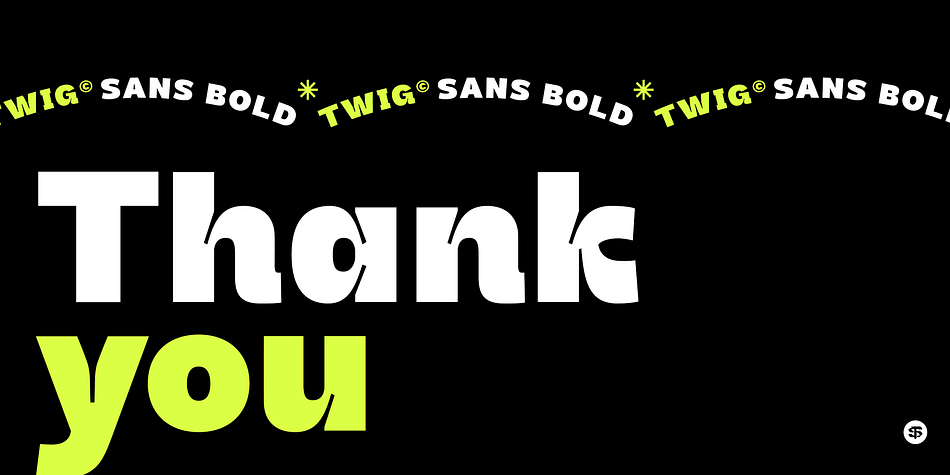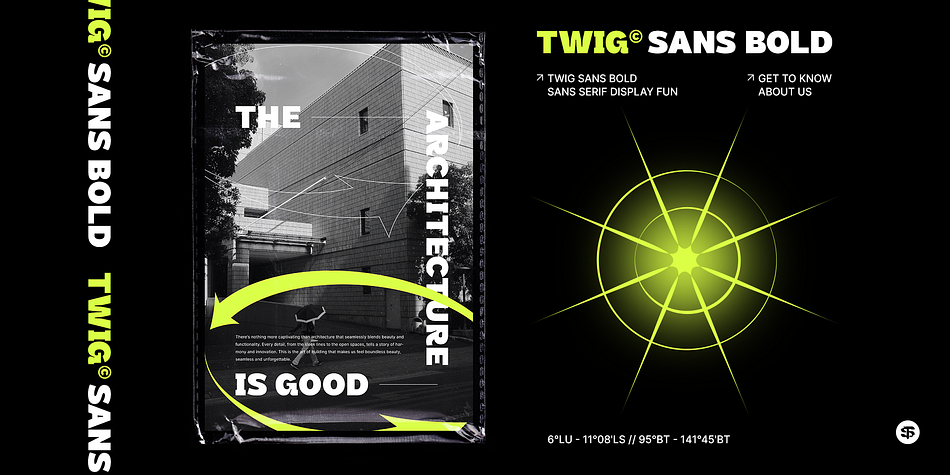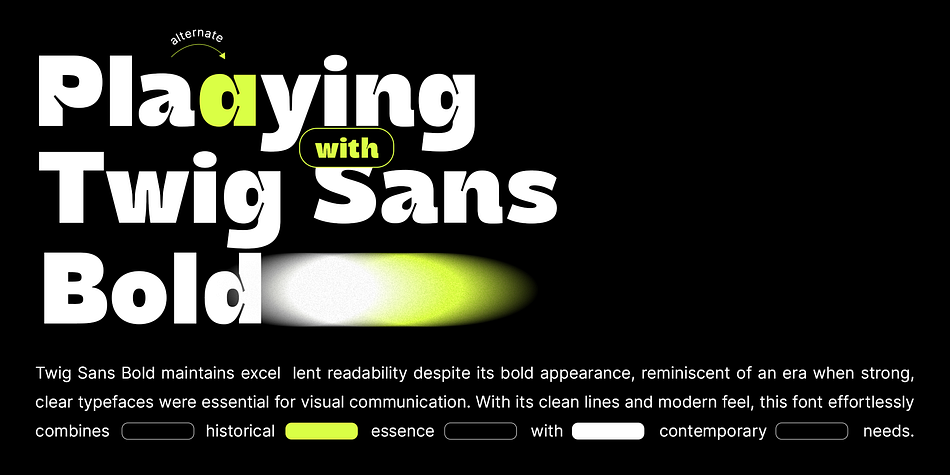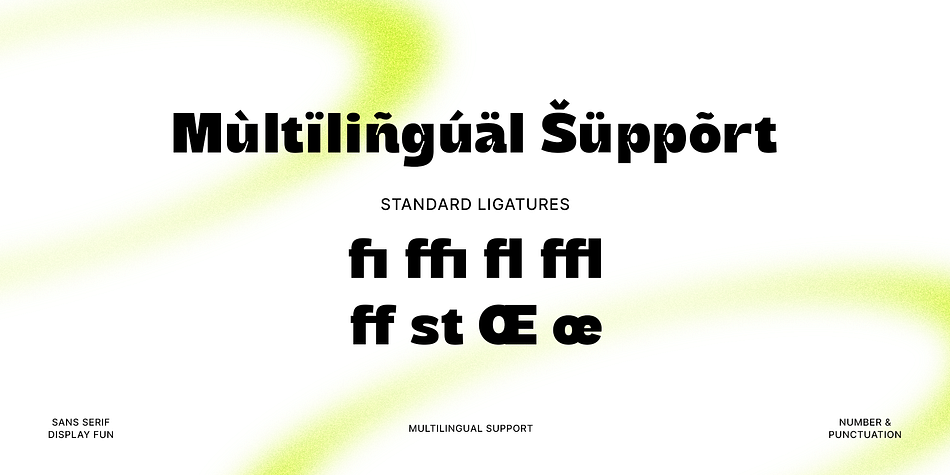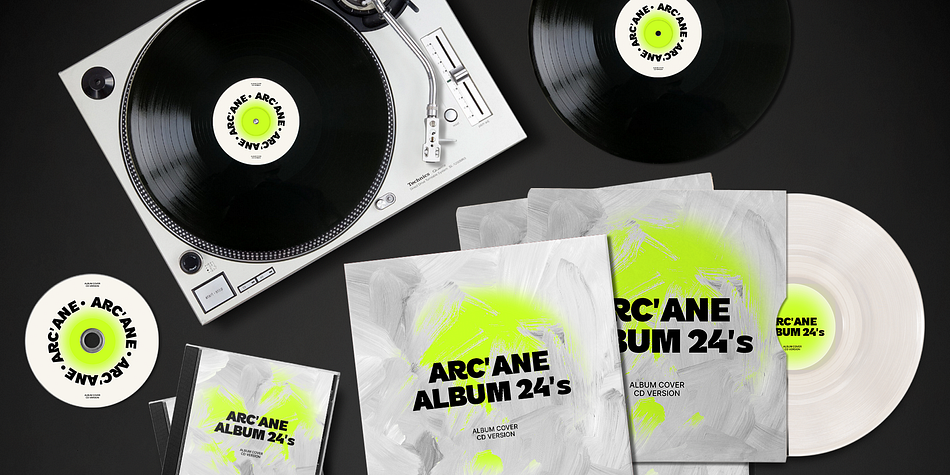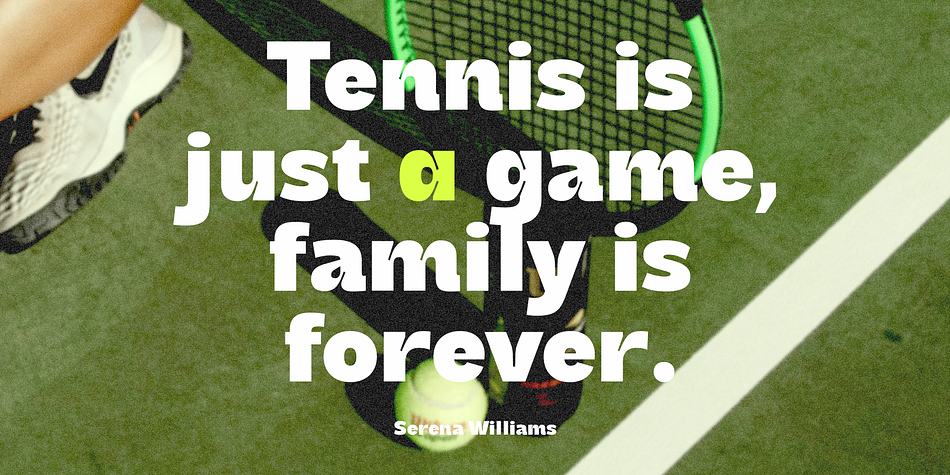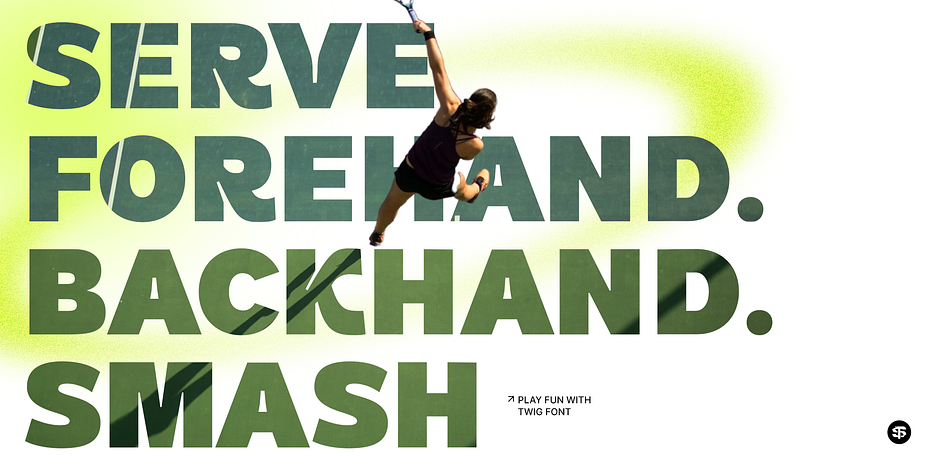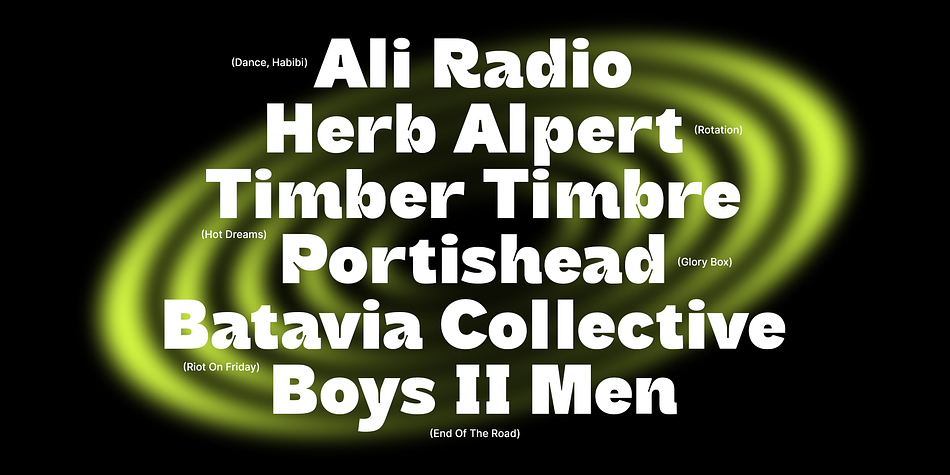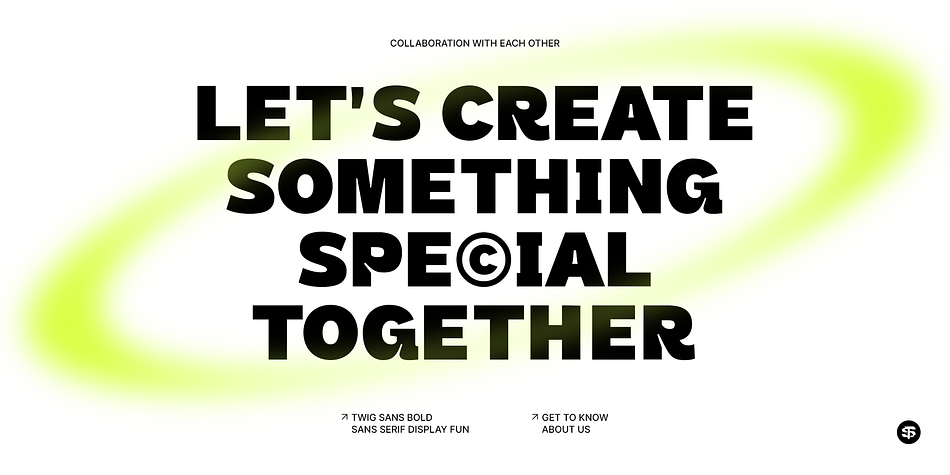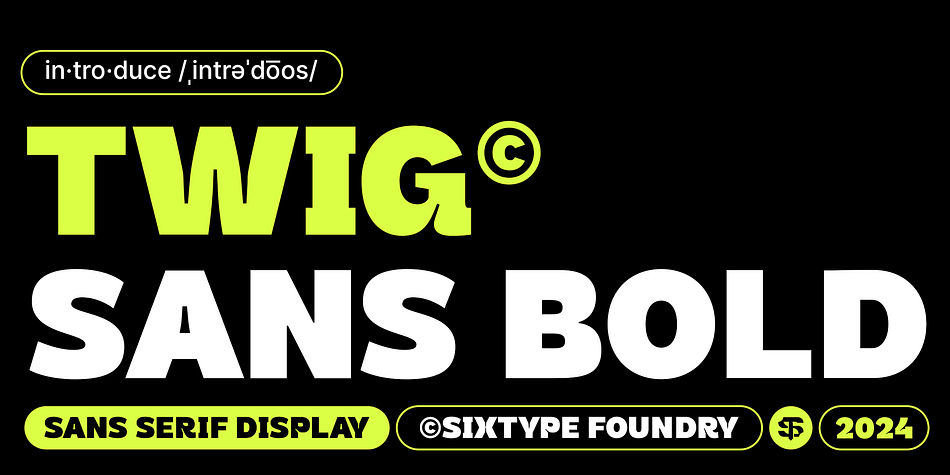
Twig Sans Bold
Twig Sans Bold is a sans serif font family published by Sixtype Foundry.
Twig Sans Bold maintains excellent readability despite its bold appearance, reminiscent of an era when strong, clear typefaces were essential for visual communication. With its clean lines and modern feel, this font effortlessly combines historical essence with contemporary needs.
Perfect for headlines, posters, branding, and any project that requires a bold statement, Twig Sans Bold is both versatile and impactful. Its striking presence and timeless appeal make it an excellent choice for designers looking to blend tradition with modernity.
Uppercase, Lowercase, Number, Punctuation and Multilingual
Unique letterforms